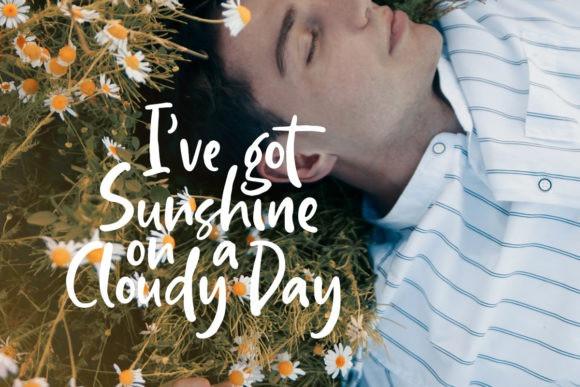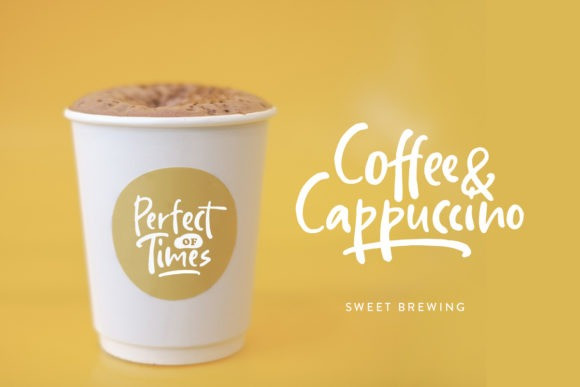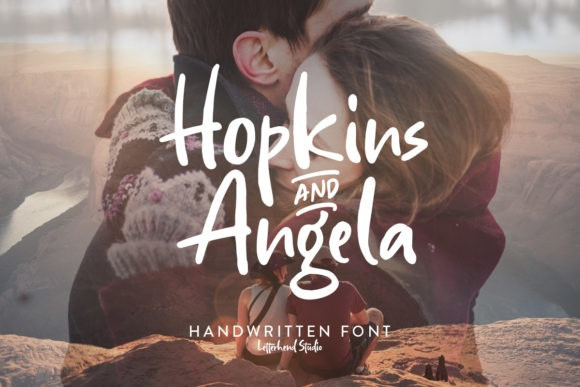
Beastic Script Font
Beastic is a beautiful script font, carefully handcrafted to become a true favorite. This font is the perfect fit for all of your logos, branding, social media, and crafty DIY projects.